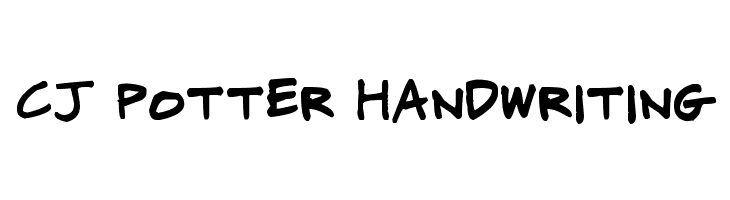
A spooky, dripping font ideal for Halloween themes.
An edgy, gothic font with claw-like serifs and a bold, dramatic style.
A playful, bold handwritten font with a whimsical and magical flair.
A sleek, modern sans-serif font with thin, elegant lines and geometric precision.
设计师偏爱 Halloween Too, A Monster Free, CJ Potter Handwriting, Dancetech and Kanit Thin,因为其造型干净、适用范围广—— 从品牌识别到落地页、海报都能胜任。